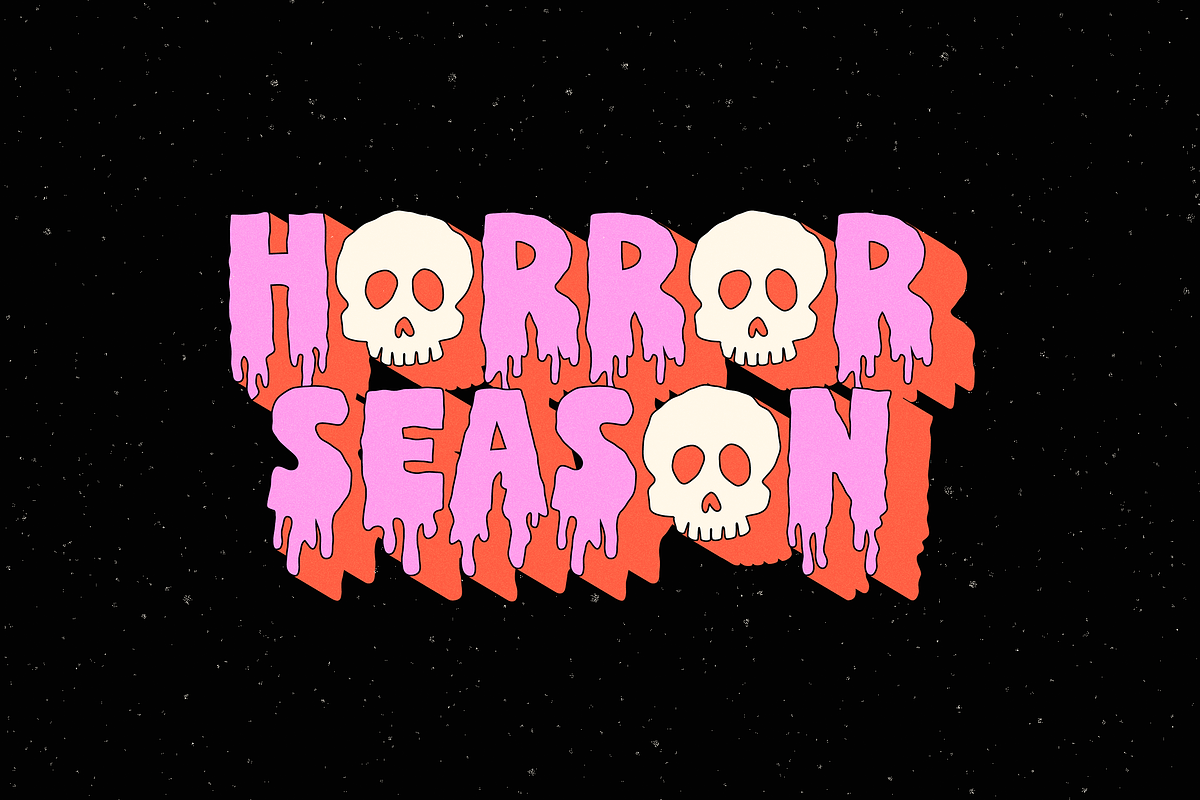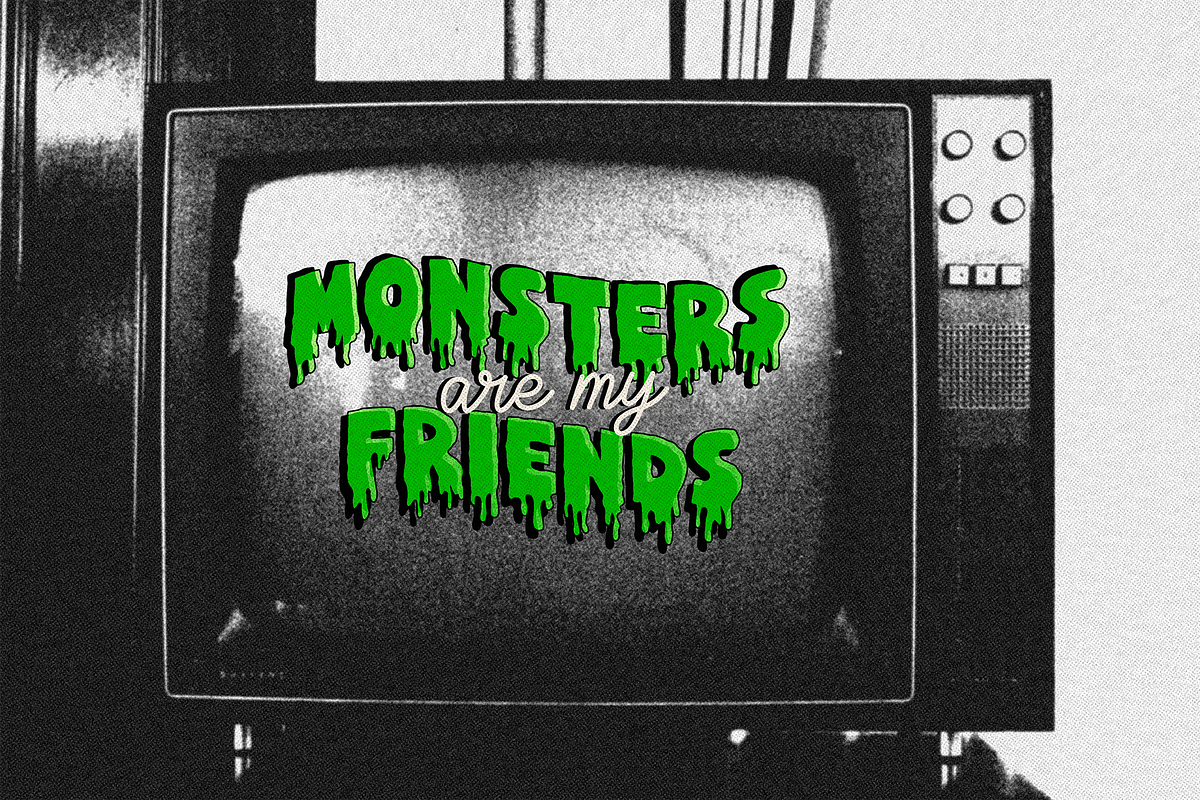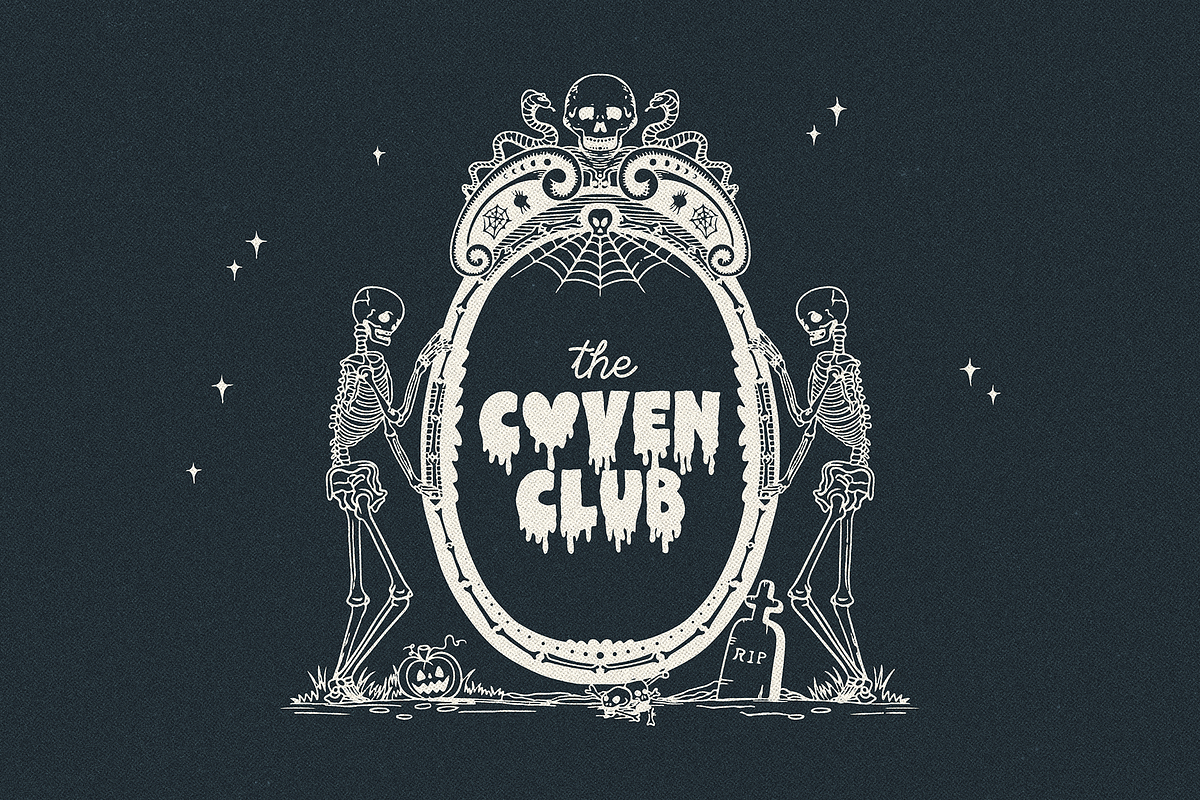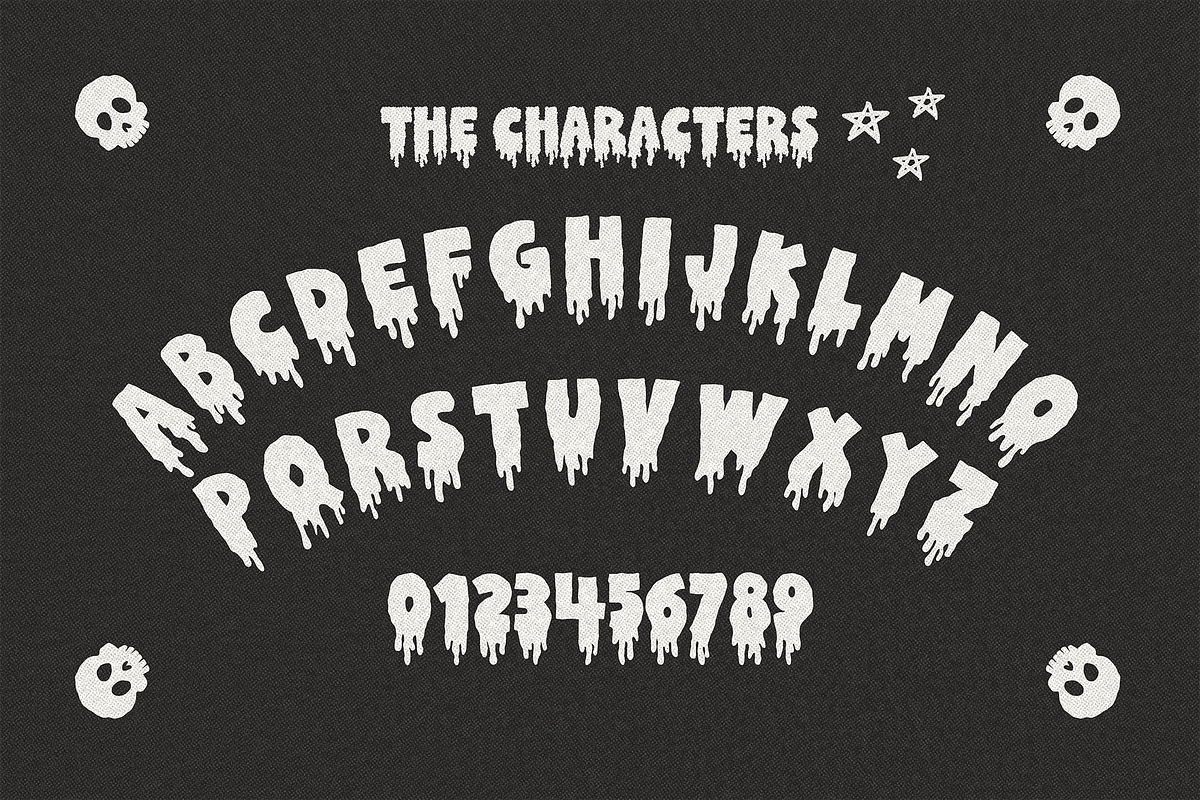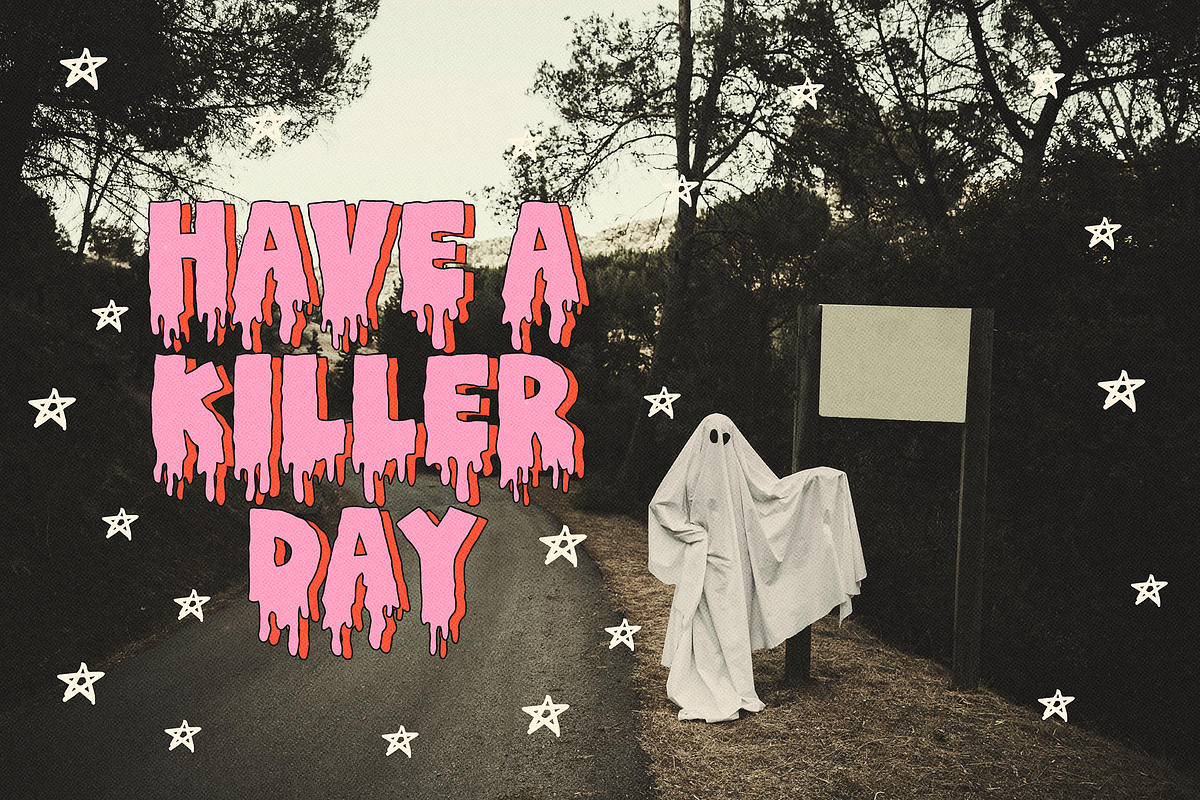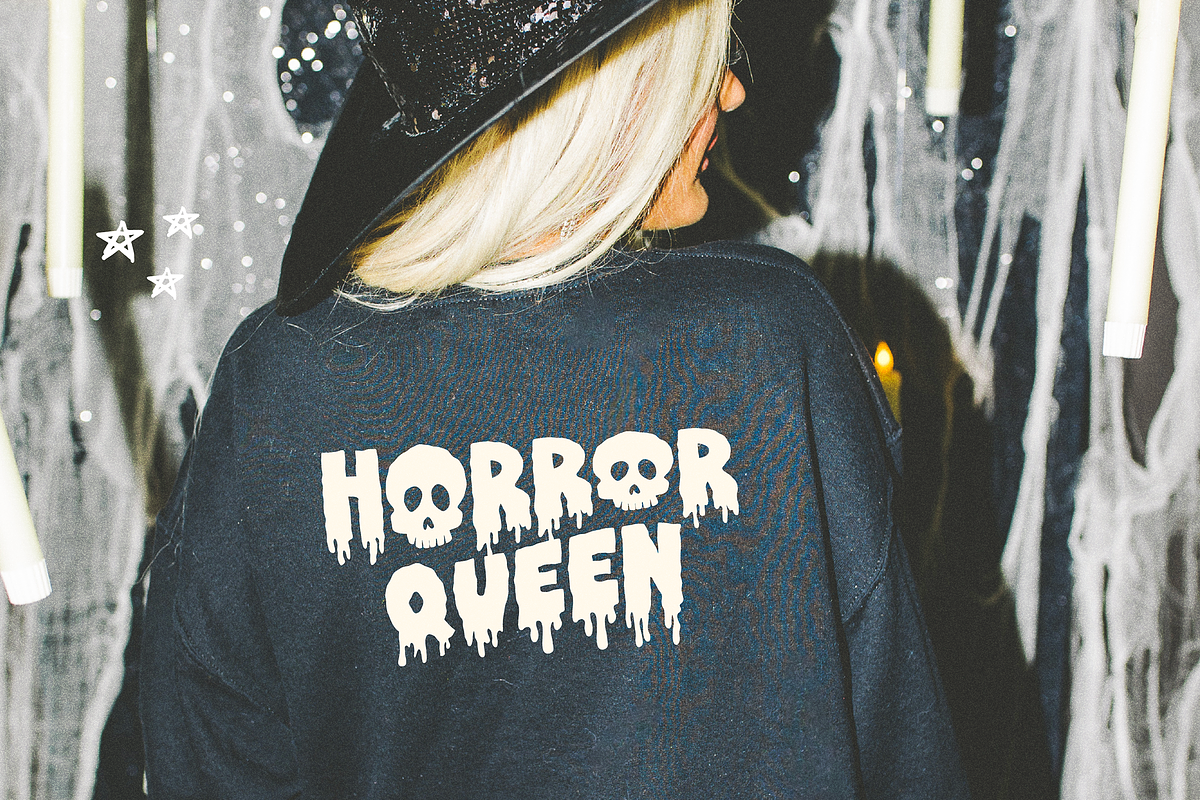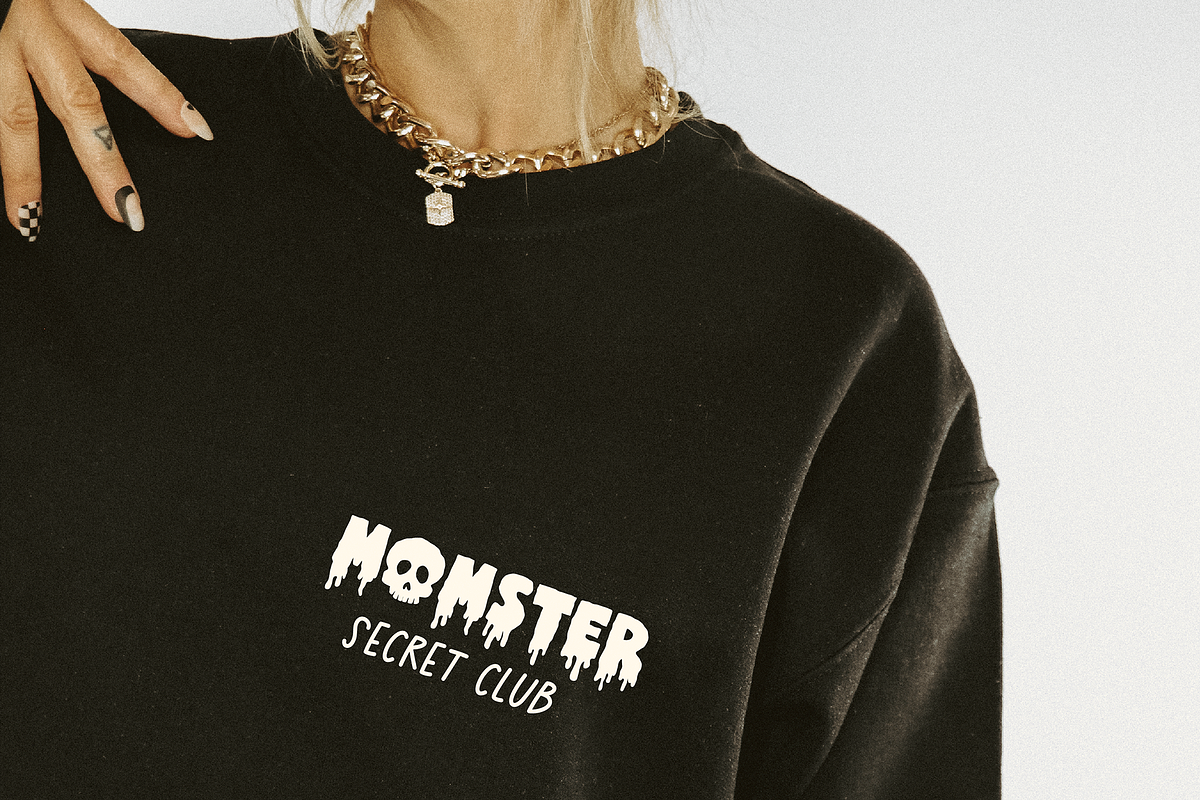
HORRORLAND - BLOODY HORROR FONT
Introducing Horrorland - Cool Hand-Drawn Bloody Font
Love Halloween, monsters, and everything horror? Horrorland is your go-to font for adding a spooky touch to your designs! Perfect for stickers, social media posts, and short phrases, this hand-drawn, bloody font is a must-have for horror enthusiasts.
Left curly bracket { – Skull
Right curly bracket } – Heart
✷ Why Choose Horrorland?
Hand-Drawn: Unique, spooky, and dripping with blood.
Versatile Use: Ideal for Halloween-themed projects, true crime fans, and horror lovers.
- ✷ Use the 3 symbols included to make cool compositions.